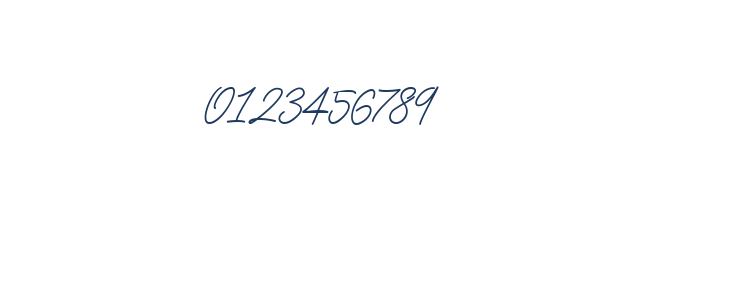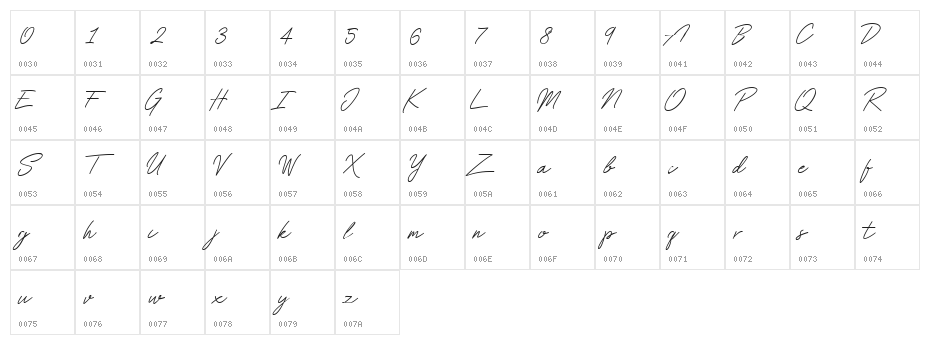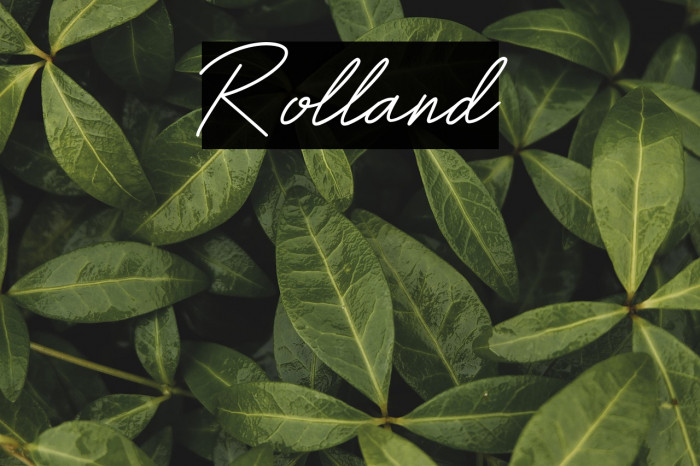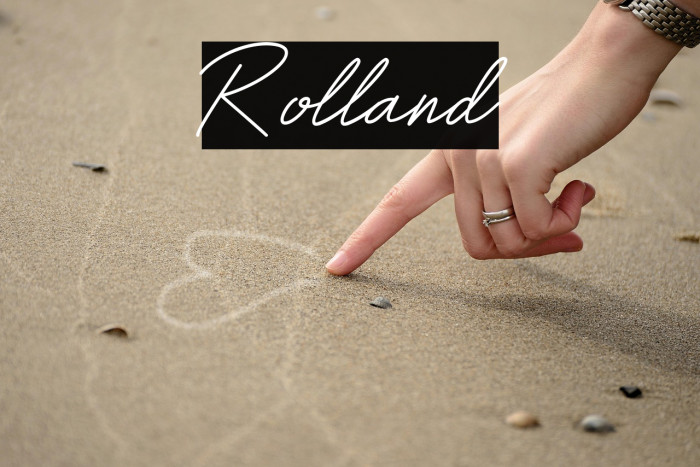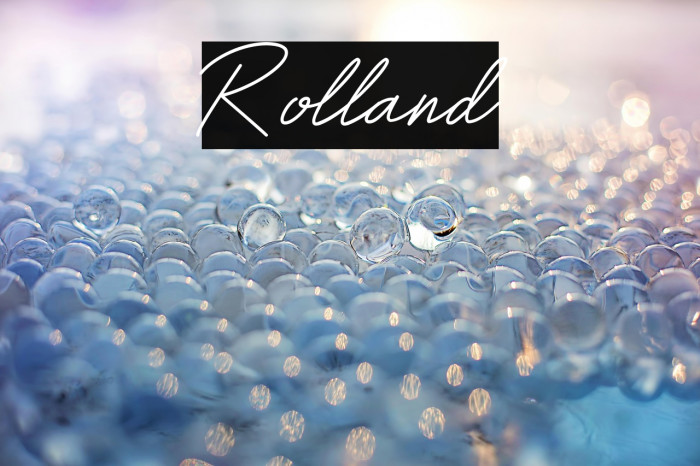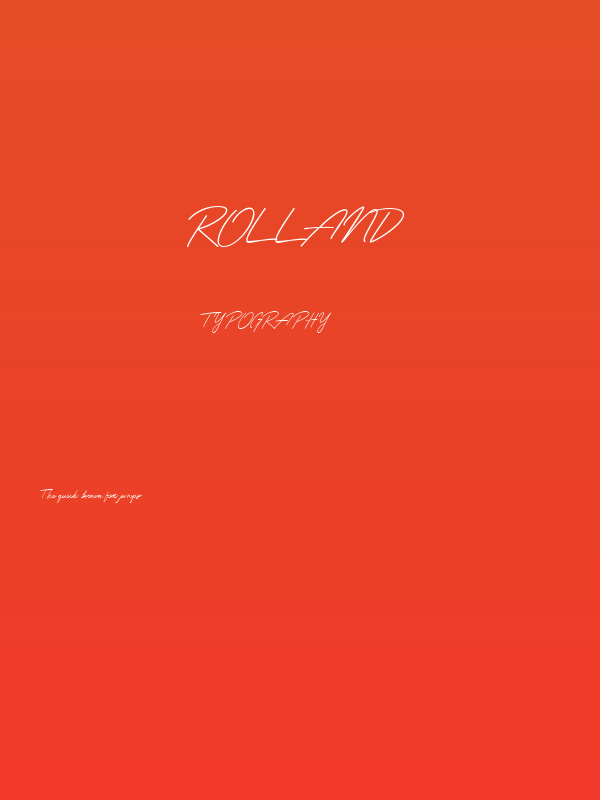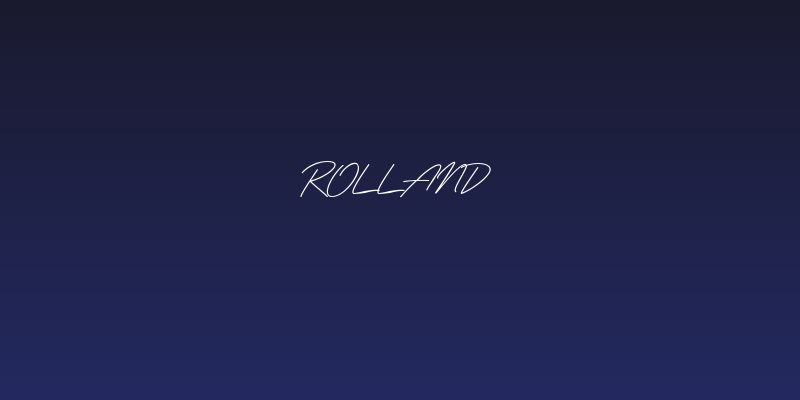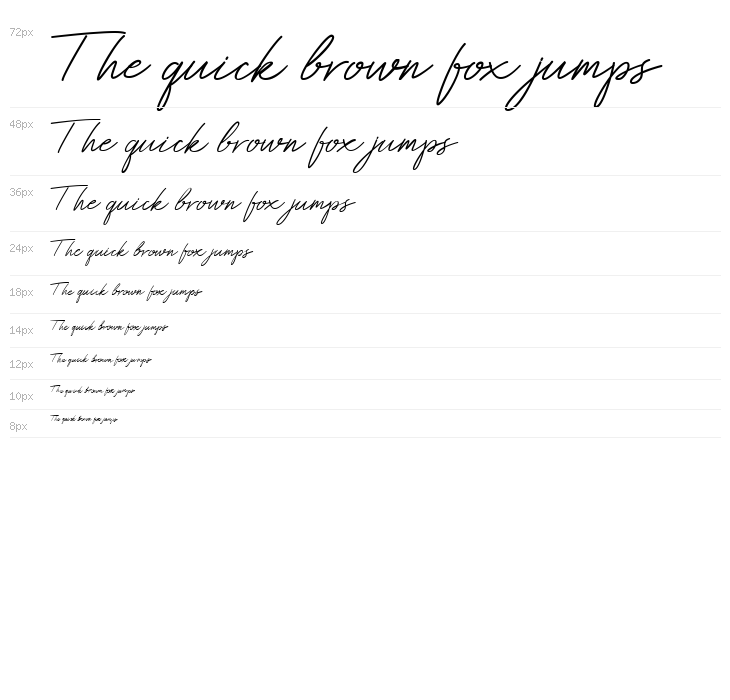
Rolland Font
Rolland Description
This elegant script font features a flowing, cursive style that exudes sophistication and grace. The uppercase letters are tall and slender, with sweeping curves and delicate loops that give them a sense of movement and fluidity. The lowercase letters are equally graceful, with a slightly more compact form that complements the uppercase characters beautifully. The numbers maintain the same elegant style, ensuring consistency throughout. This font is perfect for projects that require a touch of elegance and class, such as wedding invitations, branding, and high-end product packaging. Its stylish appearance makes it suitable for any design that aims to convey a sense of luxury and refinement.